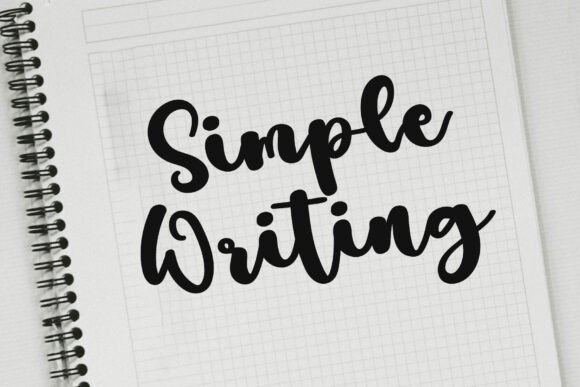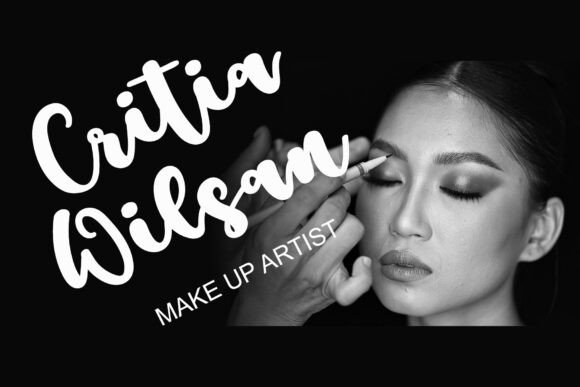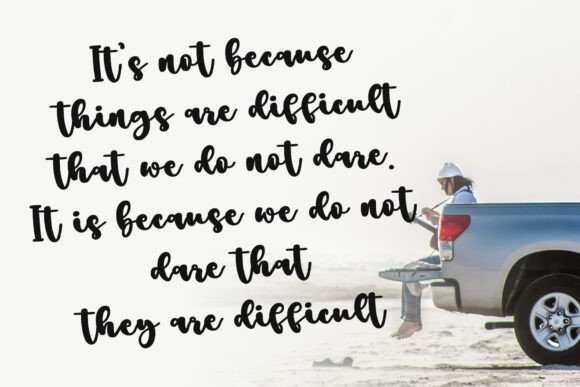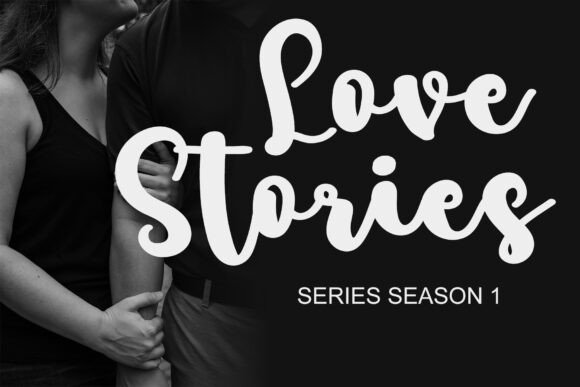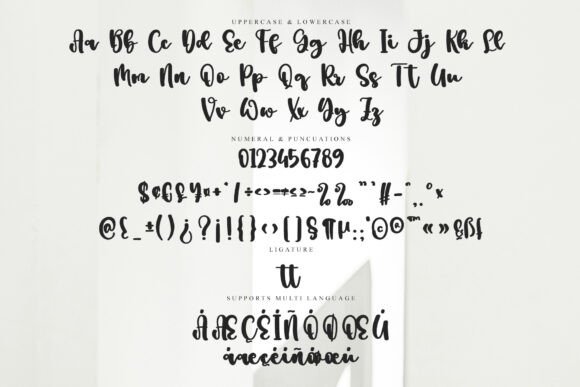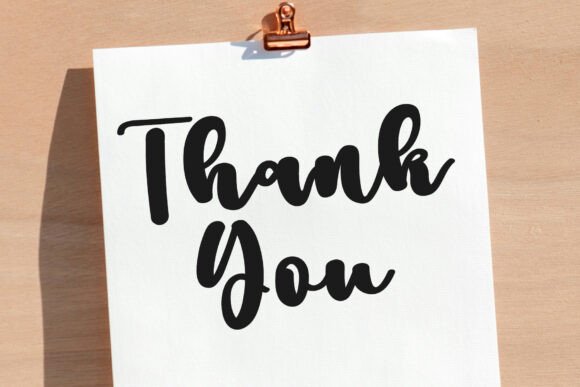
Introducing Crushy Font: The Elegant and Delicate Handwritten Typeface for Your Design Needs
Are you a designer or crafter looking for a font that exudes elegance and delicacy? Look no further than Crushy Font, a beautiful handwritten typeface perfect for a variety of design applications. In this article, we’ll explore the features and benefits of Crushy Font, and how it can elevate your designs to the next level.
What is Crushy Font?
Crushy Font is a stunning handwritten typeface that boasts an elegant and delicate aesthetic. Its refined lines and curves make it perfect for designs that require a touch of sophistication and refinement. Whether you’re working on a logo, branding project, social media post, advertisement, business card, wedding invitation, or product design, Crushy Font is the ideal choice.
Key Features of Crushy Font
- Elegant and Delicate Design: Crushy Font features a beautiful, handwritten design that adds a touch of elegance and refinement to any project.
- PUA Encoded: This font is PUA (Private Use Area) encoded, which means you can access all the glyphs and alternates with ease. This makes it simple to customize your text and create unique designs.
- Versatile: Crushy Font is perfect for a wide range of design applications, including logos, branding, social media posts, advertisements, business cards, wedding invitations, product design, and more.
Benefits of Using Crushy Font
So, why choose Crushy Font for your design projects? Here are just a few benefits of using this beautiful typeface:
- Adds Elegance and Sophistication: Crushy Font’s elegant design adds a touch of refinement and sophistication to any project, making it perfect for designs that require a high-end look.
- Easy to Use: With its PUA encoding, Crushy Font is easy to use and customize, even for designers who are new to font editing.
- Versatile: Crushy Font can be used for a wide range of design applications, making it a great addition to any designer’s font library.
- Unique and Creative: With Crushy Font, you can create unique and creative designs that stand out from the crowd.
Tips and Tricks for Working with Crushy Font
Here are a few tips and tricks to help you get the most out of Crushy Font:
- Experiment with Different Sizes and Colors: Crushy Font looks great in a variety of sizes and colors, so don’t be afraid to experiment and find the perfect combination for your design.
- Use the Glyphs and Alternates: Take advantage of the PUA encoding to access the glyphs and alternates, and create unique and creative designs.
- Pair with Other Fonts: Crushy Font pairs well with other fonts, so try combining it with a bold font for a striking contrast.
In conclusion, Crushy Font is a beautiful and elegant handwritten typeface that’s perfect for designers and crafters looking to add a touch of sophistication and refinement to their designs. With its PUA encoding, versatile design, and ease of use, Crushy Font is a great addition to any designer’s font library. So why wait? Download Crushy Font today and start creating stunning designs that impress!